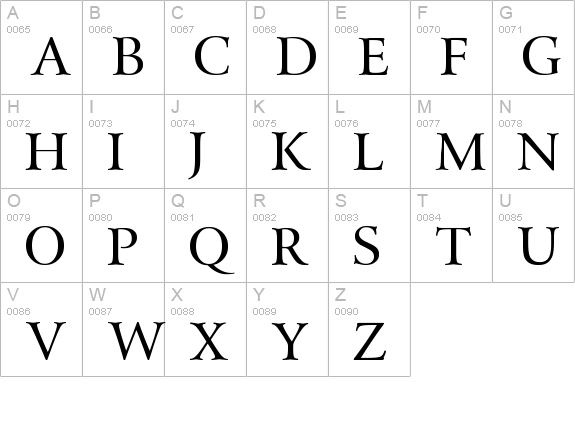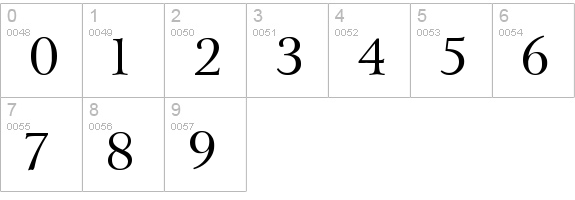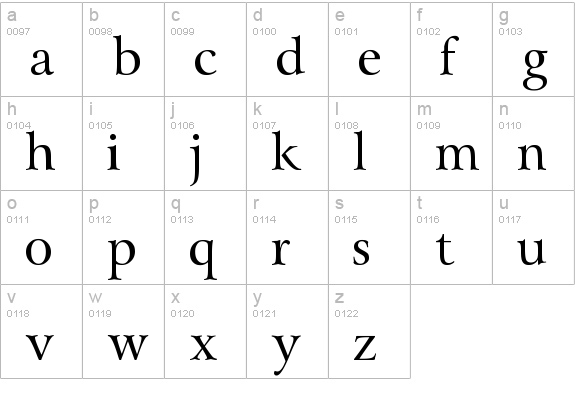
Oeste Font Details
Oeste font is a modern and stylish typeface that exudes sophistication and elegance. With its sleek lines and contemporary design, Oeste is perfect for a wide range of projects, from logos to branding to editorial design. Its versatility makes it a go-to choice for designers looking to make a statement with their typography. What sets Oeste font apart is not only its aesthetic appeal but also its accessibility - it is available for free download at FontsMarket.com. This means that you can easily incorporate this stunning font into your projects without breaking the bank. Whether you're a seasoned designer or just starting out, Oeste font is a valuable addition to your font library. Download it today and elevate your designs with this gorgeous typeface.